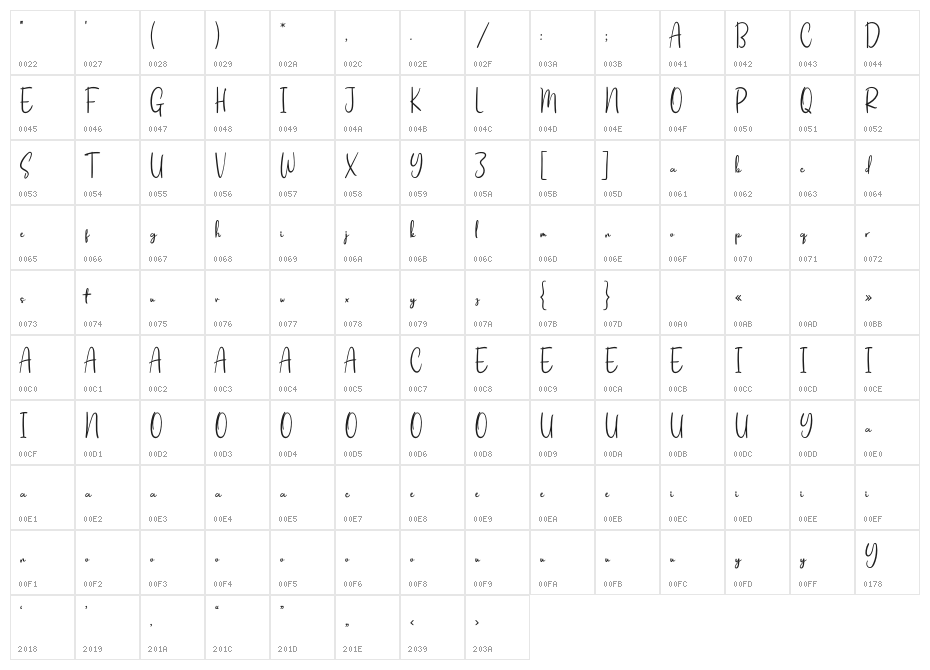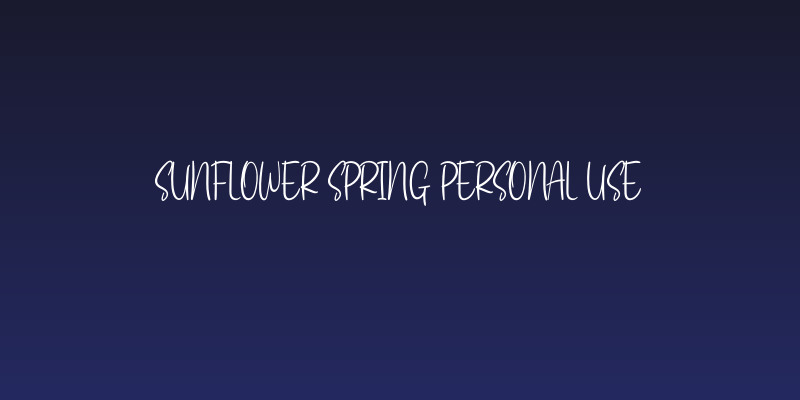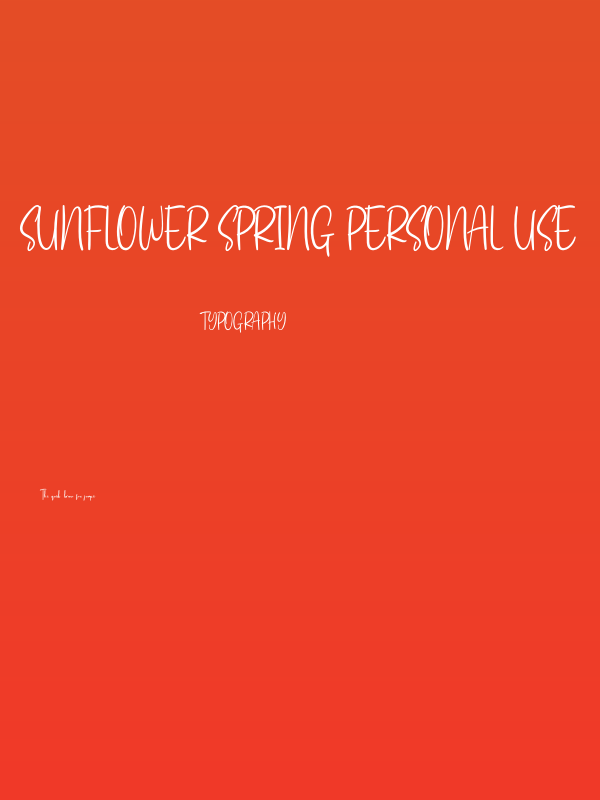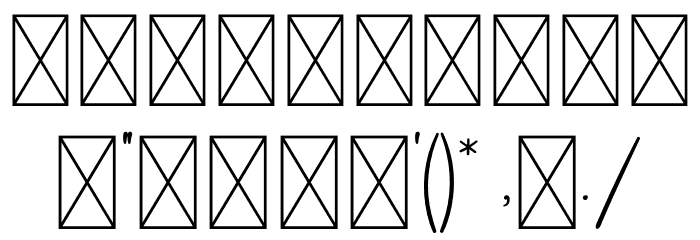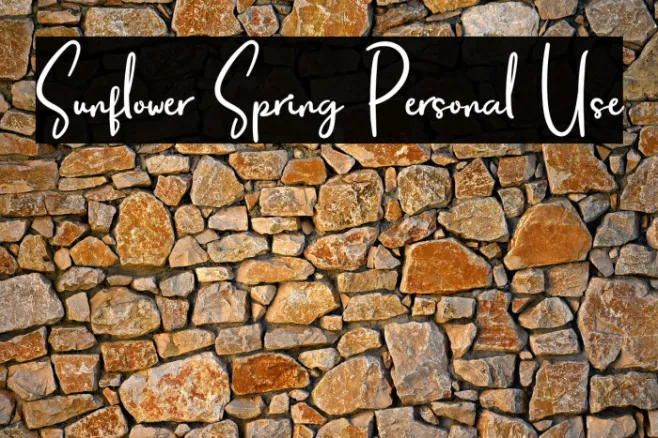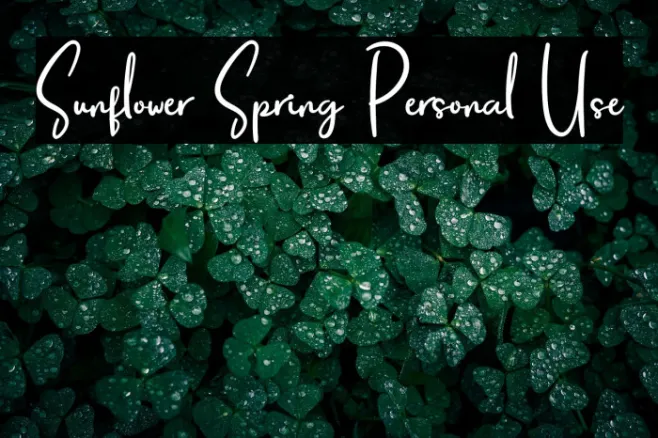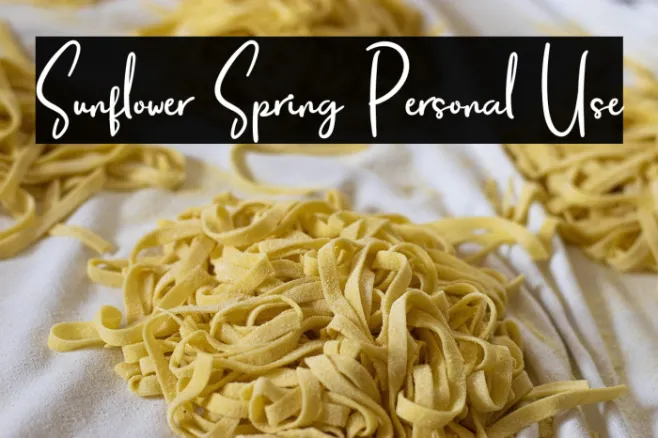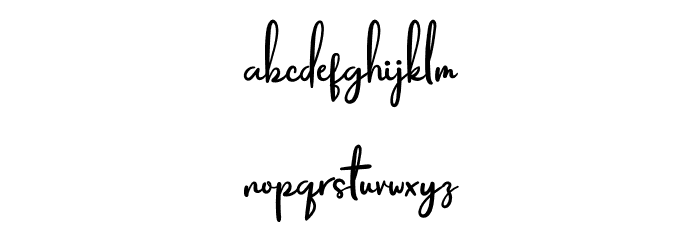
Sunflower Spring Personal Use Font
Sunflower Spring Personal Use Description
This font features a playful and whimsical style with a handwritten appearance. The uppercase letters are tall and slightly narrow, with a casual, flowing script that adds a touch of elegance. The lowercase letters complement the uppercase with a more rounded and smooth design, maintaining the handwritten aesthetic. The overall look is both friendly and approachable, making it suitable for a variety of creative projects. The font includes a range of special characters, enhancing its versatility for different design needs.
| Proposed Projects | Ideal for greeting cards, invitations, personal branding, and creative projects that require a friendly and approachable touch. |